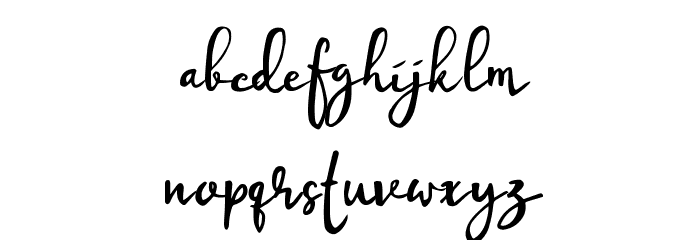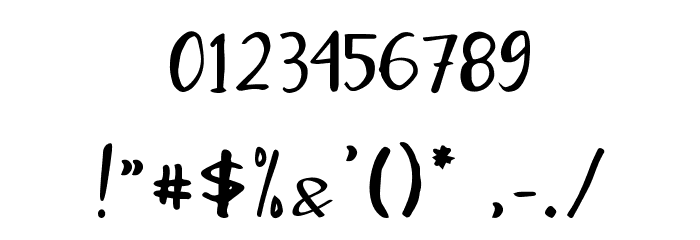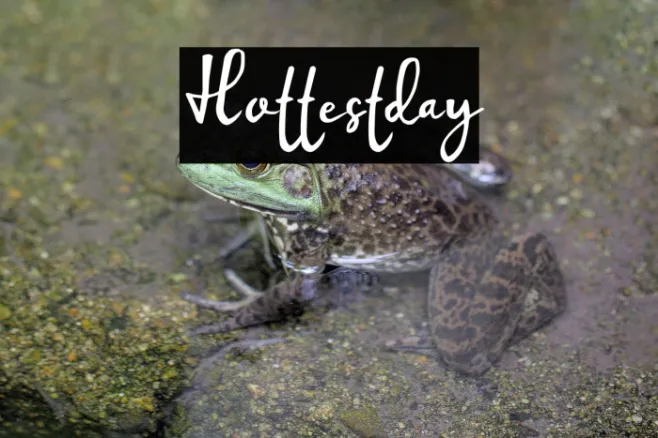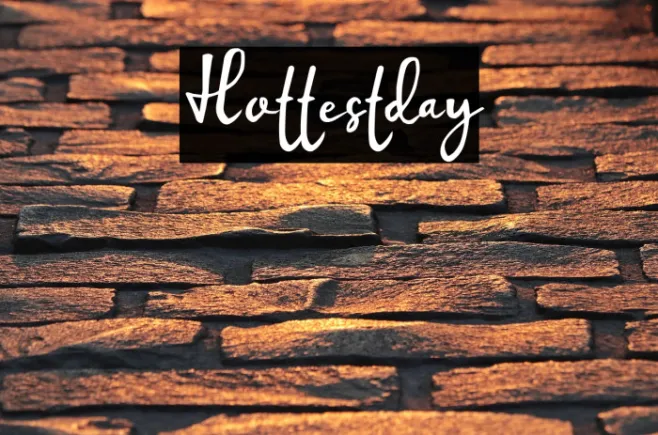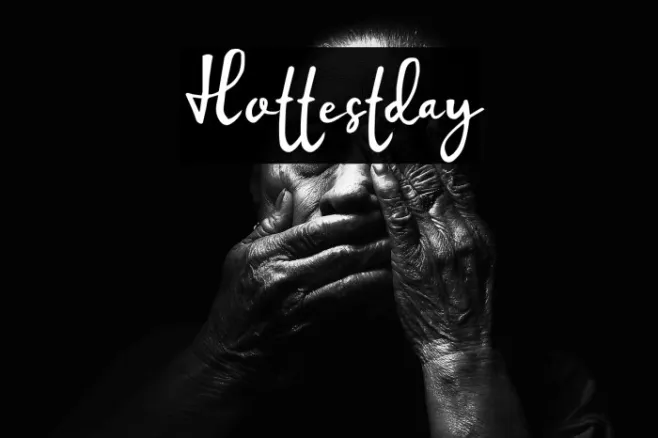
Hottestday Font
This font exhibits a lively and dynamic handwritten style, characterized by its flowing and cursive letterforms. The uppercase letters are bold and expressive, with a slight slant that adds a sense of motion and energy. The lowercase letters maintain a consistent style, with smooth curves and a playful touch. The numerals are clear and legible, complementing the overall aesthetic. Special characters are well-integrated, maintaining the font's cohesive look. This font's design is both modern and approachable, making it suitable for a variety of creative applications.
A lively, handwritten font with flowing cursive letterforms.
- Proposed Projects: Ideal for greeting cards, invitations, branding projects, and social media graphics.
- Use Case: Logos, Headlines, Invitations